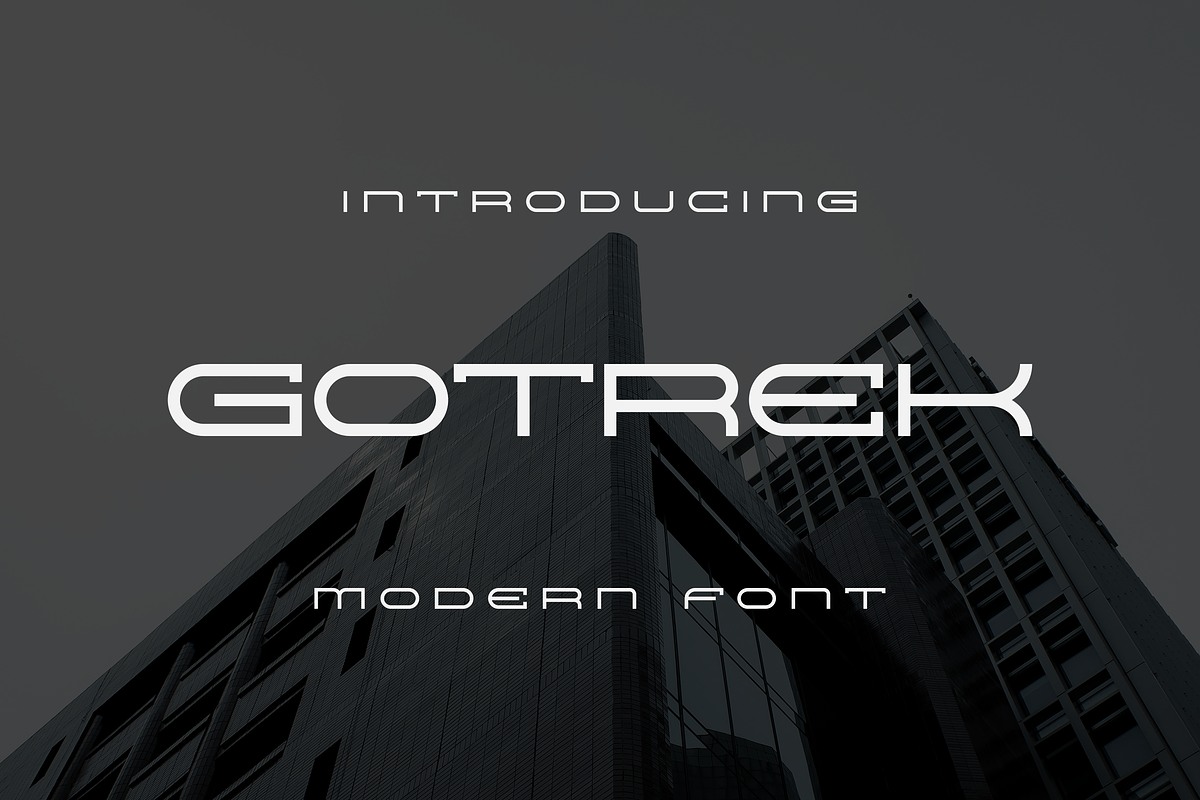
Gotrek Font Free Download is a bold and modern typeface designed to create a strong visual impact. Featuring sharp, clean lines and a strong geometric structure, Gotrek is ideal for logos, branding, posters, headings, and any design that requires attention-grabbing typography. Its strong character and contemporary look make it perfect for both digital and print media.
Whether you're designing a corporate identity, creating a bold statement for an event, or working on a high-energy project, Gotrek adds power and style to your typography.